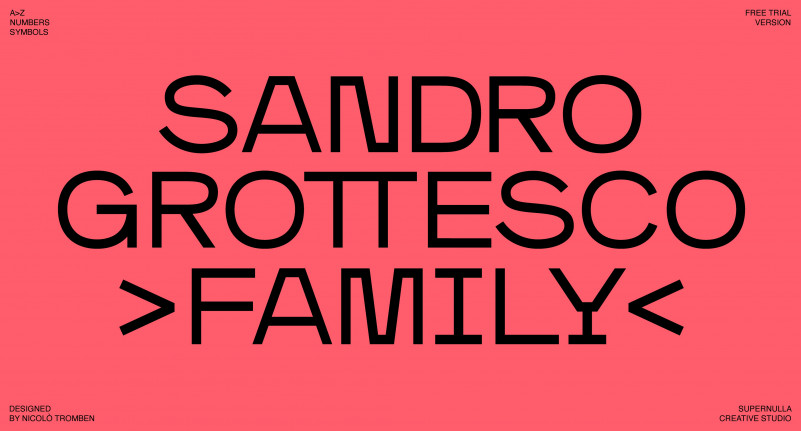
Sandro Grottesco Font
Sandro Grottesco Sans Serif Font is a semi extended typeface family and the glyphs are designed with a big contrast between rigid and soft shapes to obtain a funny and dynamic personality.